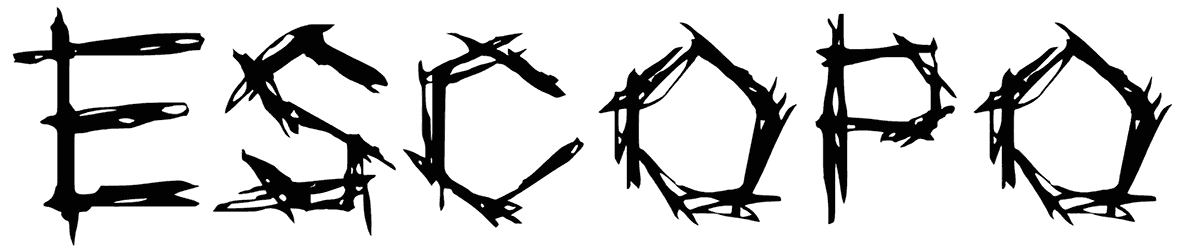
Escopo Font
If you’re tired of blood-dripping elements and wandering souls to implement your horror projects, Escopo can open new doors. Using this emo font, which is an irregular combination of lines and sharp angles, you can convey the sense of blight well.
So if you don’t need small letters and are looking for a new way to express your scary ideas, add this to your collection. Escopo matches well with posters, teasers, and advertisements and doubles your power to implement new ideas.